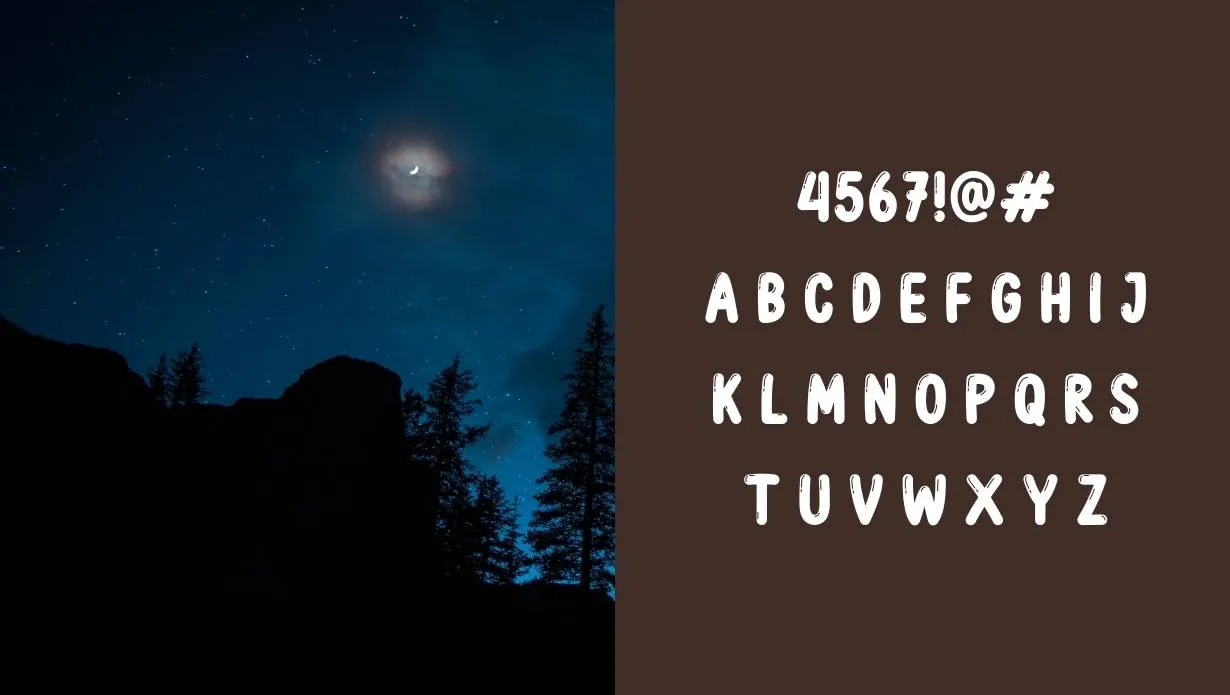
Today, we present an amazing typeface known as Cocomelon Font. This family was developed by Editorial Staff. This typeface belongs to the display family. This family can be used for various purposes like headlines, advertising, and more. The font family is available in two styles Regular and Light.
It is also used for CSS and SVG. Cocomelon Font is a fun typeface that will add a touch of playfulness to your designs. This font is perfect for creating invitations, greeting cards, and other materials for kids’ parties. You can also use trocchi font which is closest to this font family.
Cocomelon Font Family